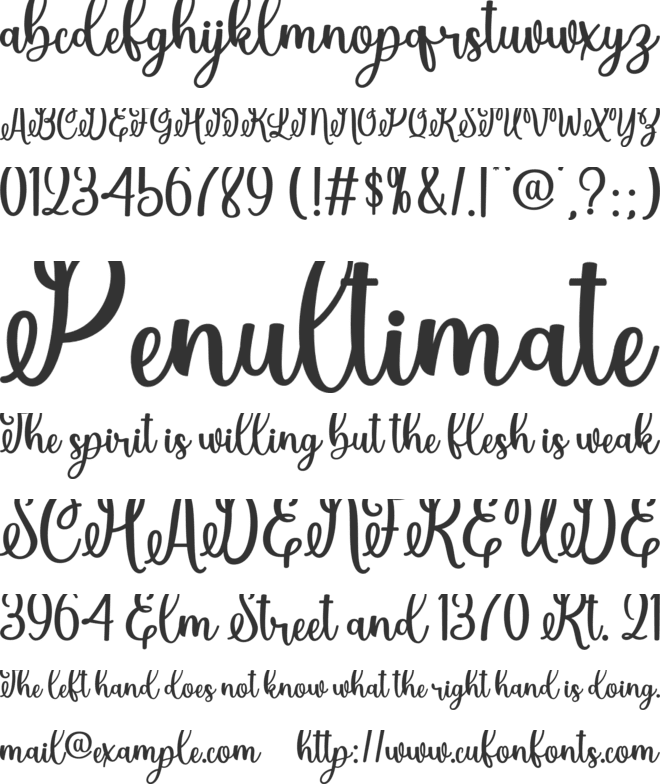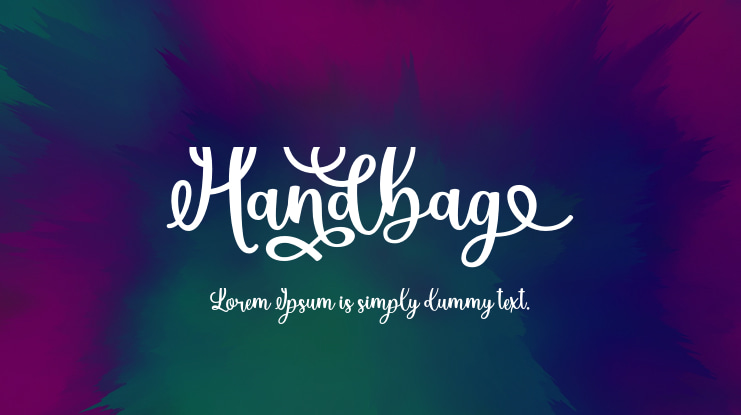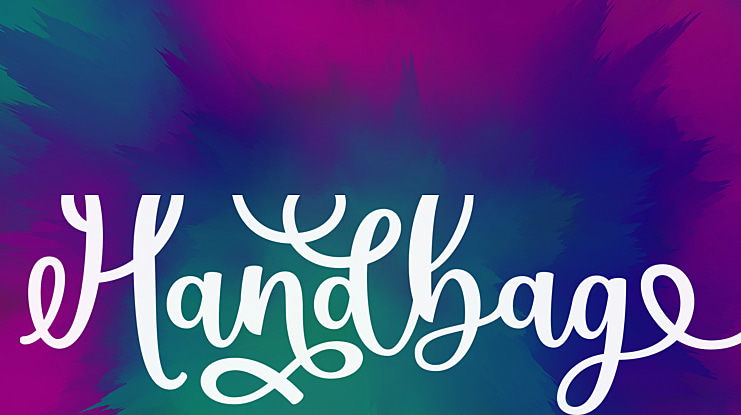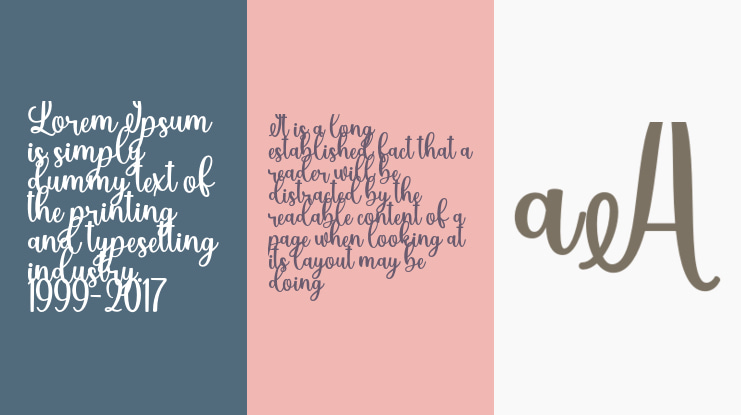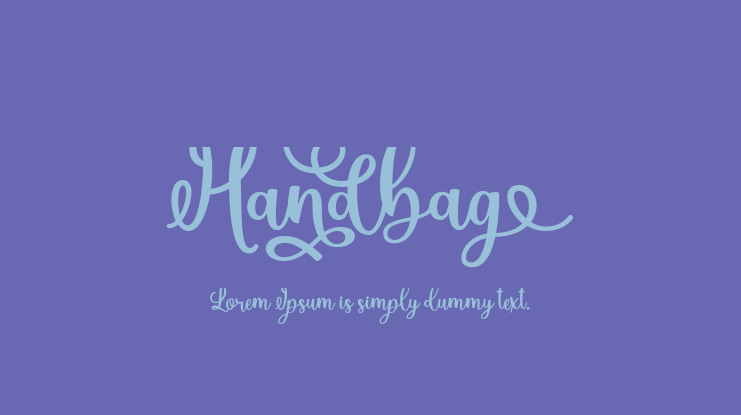
Handbag Font
This is a delicate, elegant and flowing handwritten font. It has beautiful and well balanced characters and as a result, it matches a wide pool of designs. Add it to your most creative ideas and notice how it makes them come alive! Handbag is PUA encoded which means you can access all glyphs and swashes with ease!